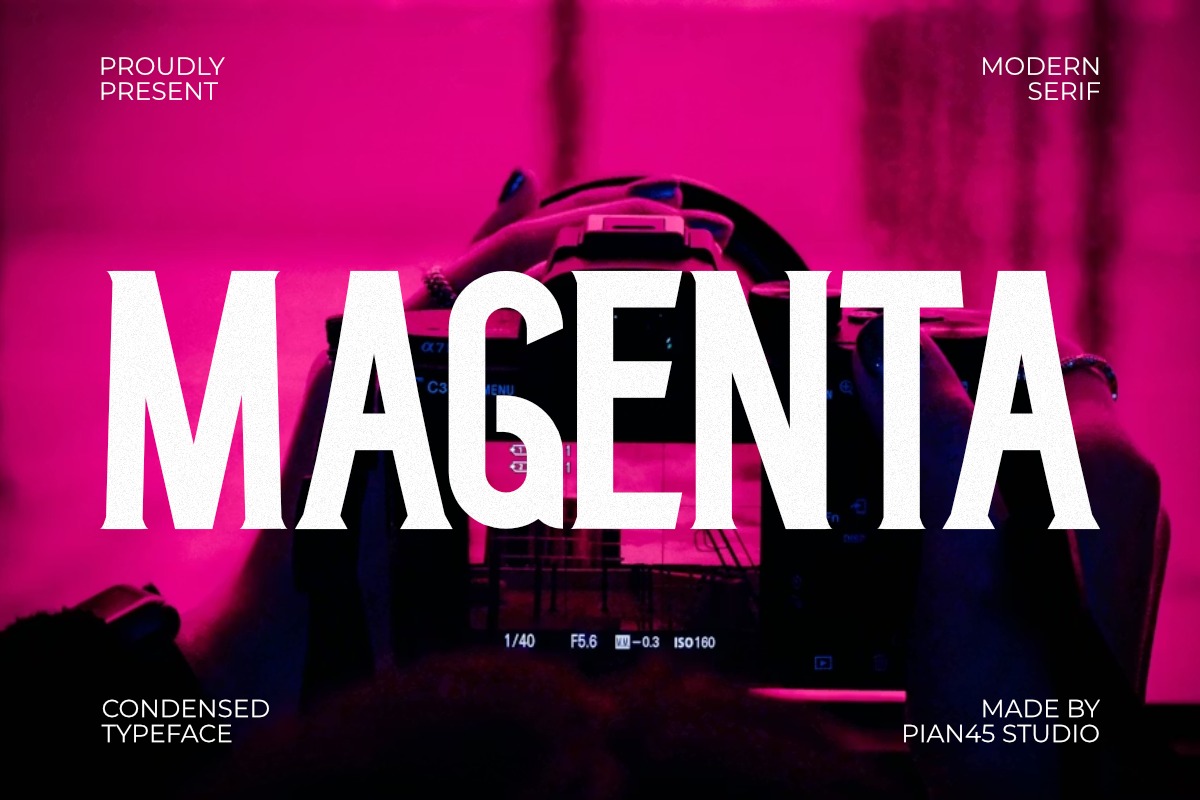
Magenta – Condensed Serif Font
Magenta – Condensed Serif Font is a distinctive and expressive font crafted to bring personality, structure, and creative energy into your projects. Magenta is a striking and elegant Modern Serif font designed for high-impact editorial and luxury branding. Its ultra-bold, condensed structure, combined with sharp, classic serifs, makes it perfect for high-fashion headlines, magazine covers, and sophisticated logo design. This all-caps typeface delivers a dramatic, contemporary, and instantly recognizable visual identity, making it essential for any project demanding a glamorous, dominant, and premium presence.
Perfect For: High-fashion branding, luxury cosmetics and beauty packaging, and upscale lifestyle logos. It is also an exceptional choice for elegant editorial layouts, modern photography portfolios, sophisticated perfume or jewelry labels, stylish magazine covers, art gallery event posters, premium product identity designs, and chic social media headers that require a bold, classy, and distinctly modern serif presence.